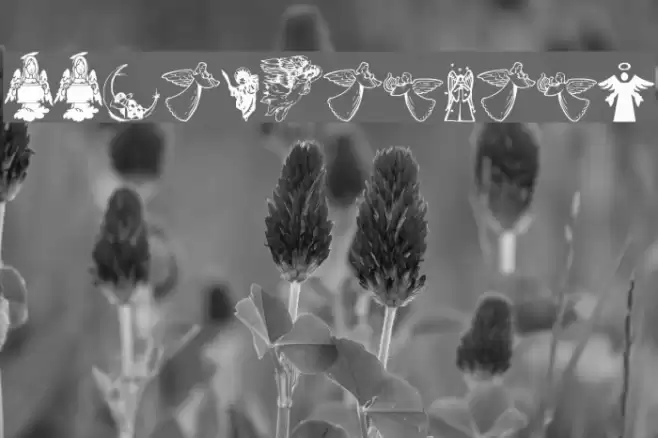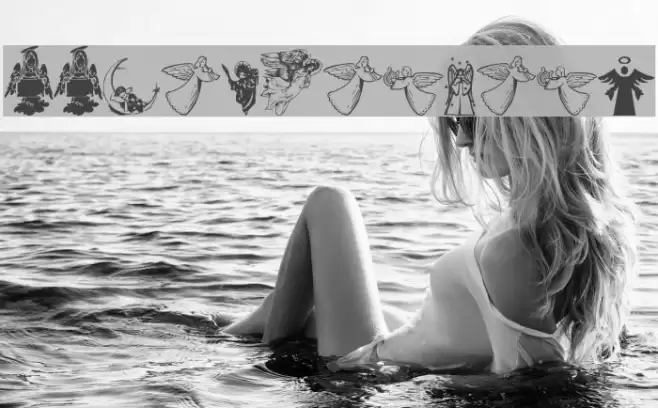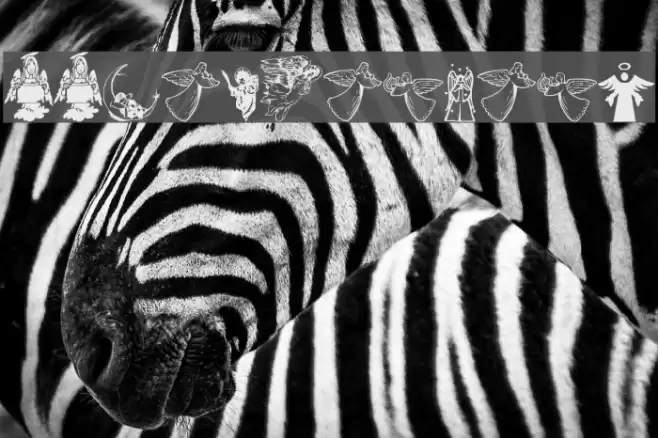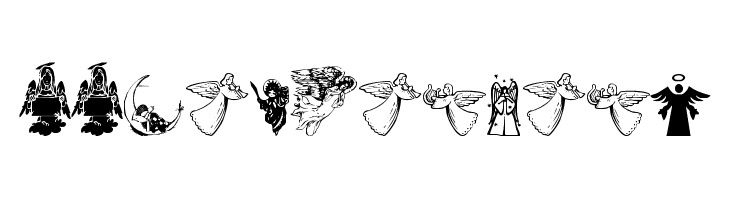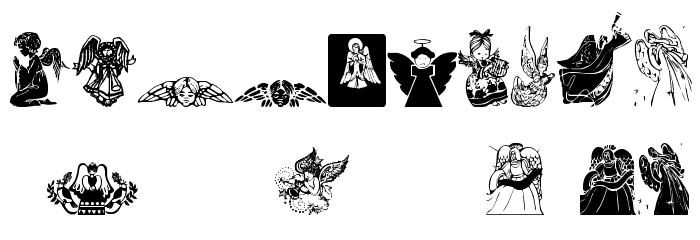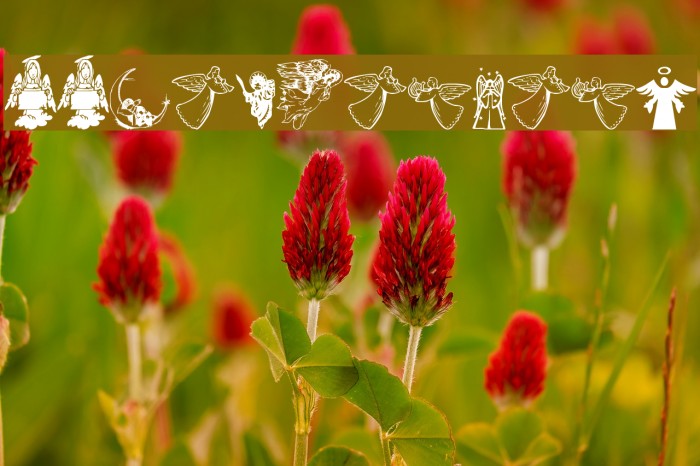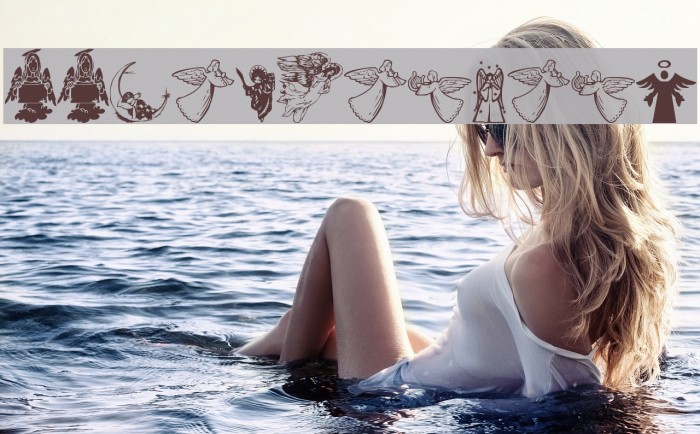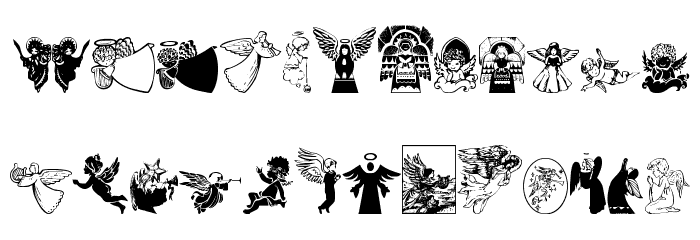
WWHeavenSent Font
WWHeavenSent Description
A decorative dingbat font featuring a wide variety of angel-themed illustrations, including stylized, cartoonish, and detailed depictions of angels in different poses and settings. The glyphs are highly illustrative, with both filled and outlined designs, and include both single and group compositions.
Angel-themed decorative dingbat font with diverse illustrative glyphs from Dingbats fonts.
- Proposed Projects: Holiday cards, religious materials, scrapbooking, event invitations, decorative borders, and themed crafts.
- Overall Style: Decorative, Thematic, Illustrative
- Use Case: Decorative elements, icons, embellishments